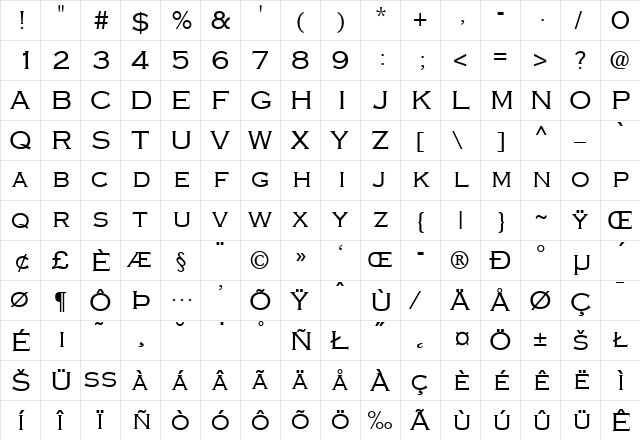
Copperplate-ThirtyTwoAB Regular
Design Context for Copperplate-ThirtyTwoAB Typeface
Copperplate-ThirtyTwoAB offers clean, dependable letterforms without strong stylistic allegiance, making it a practical choice for designers who need flexibility.